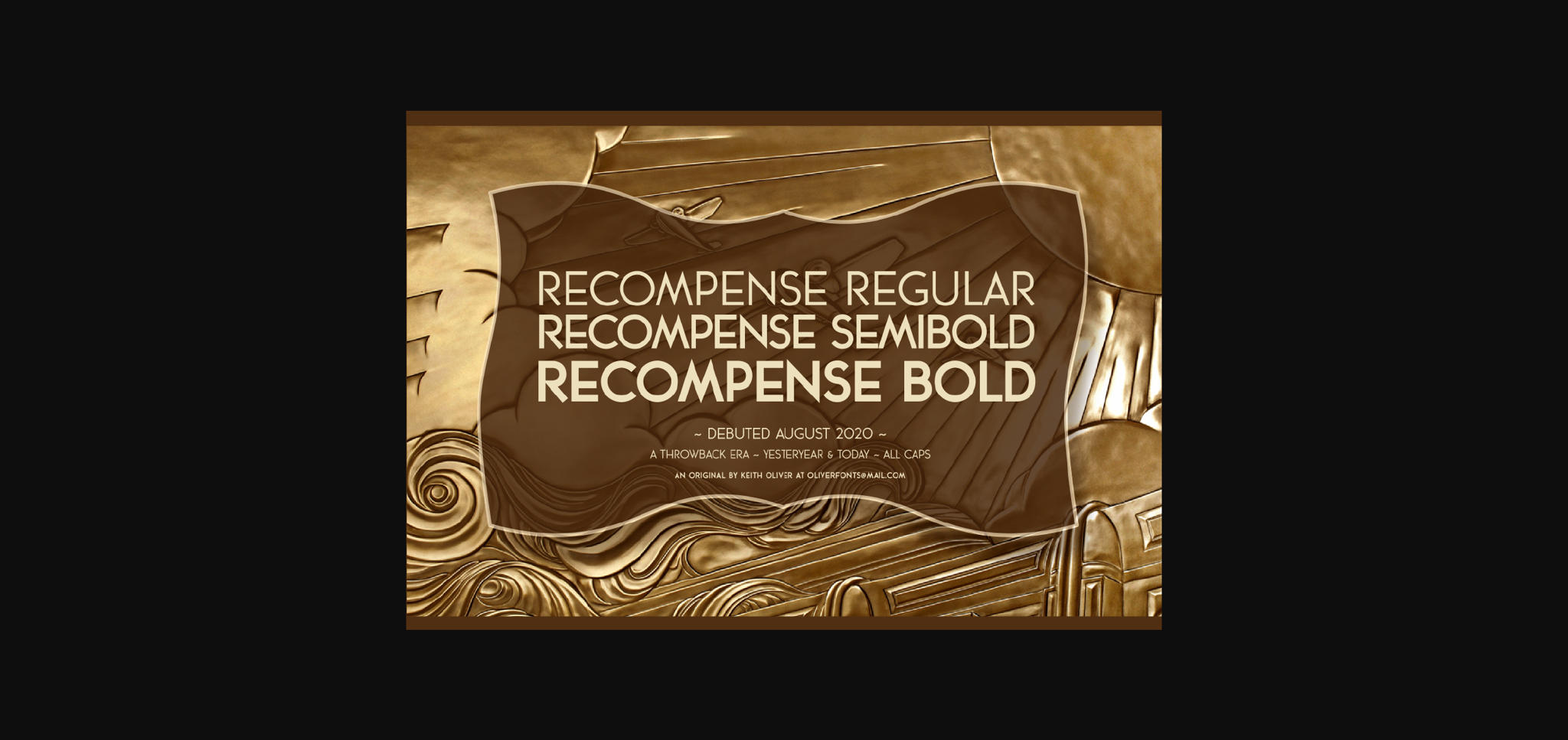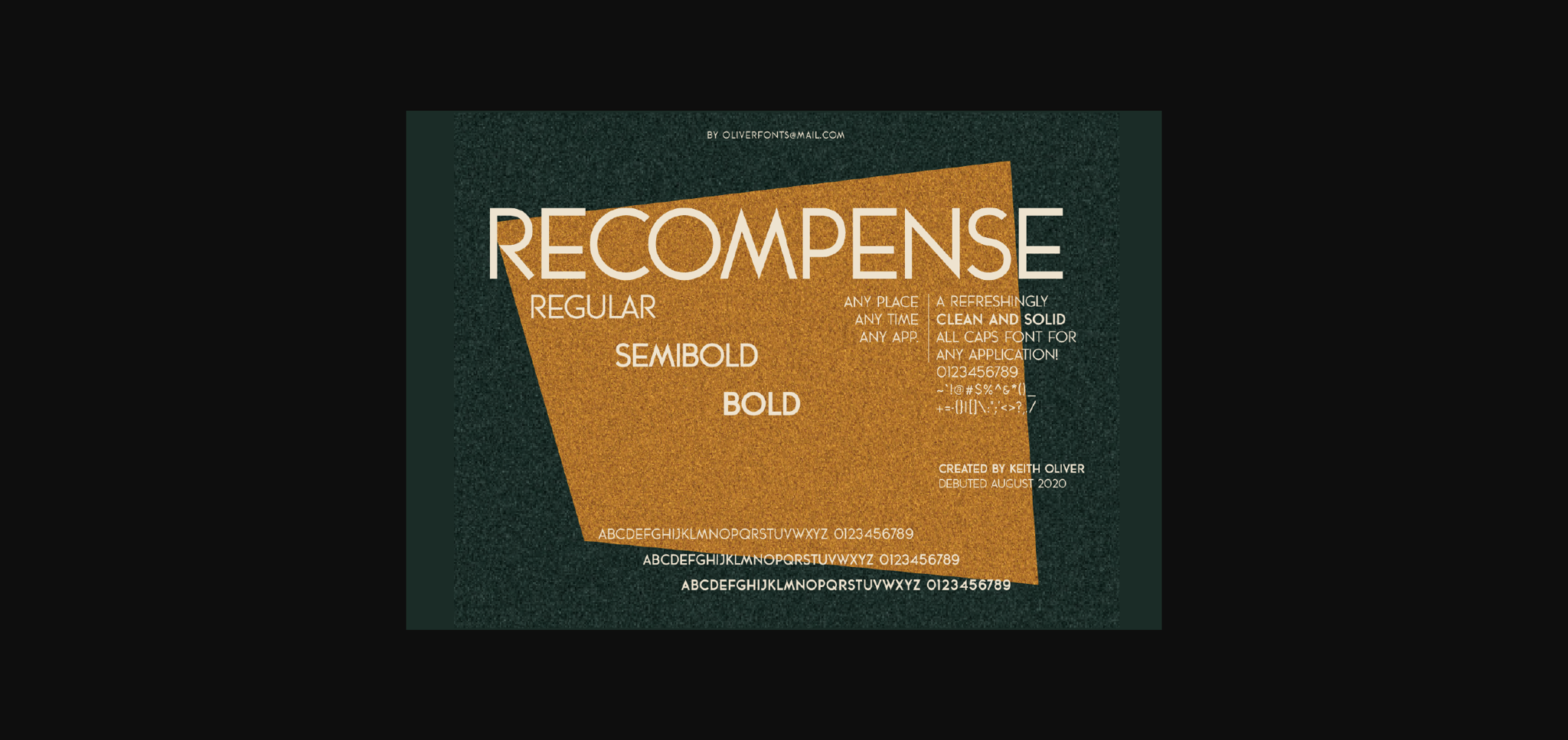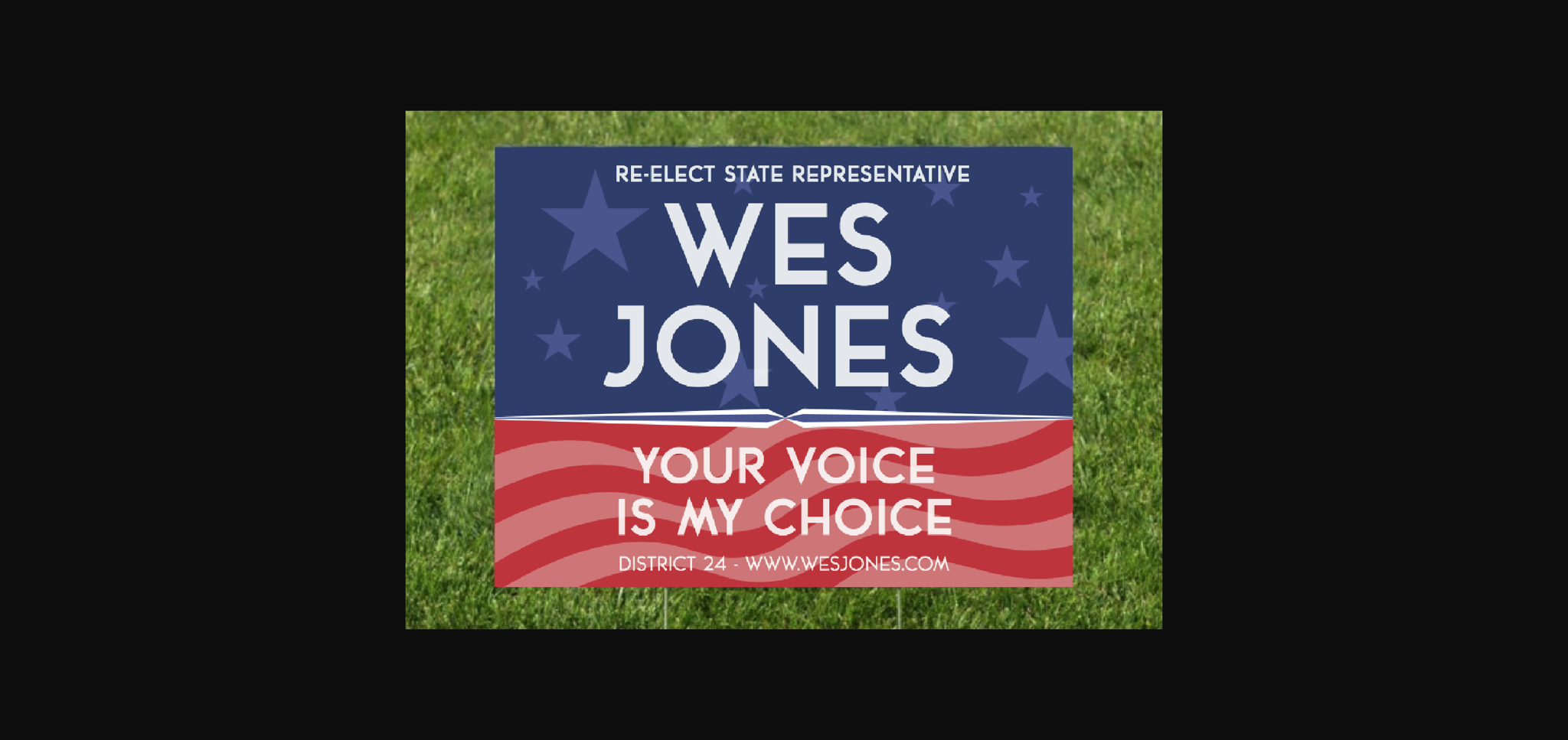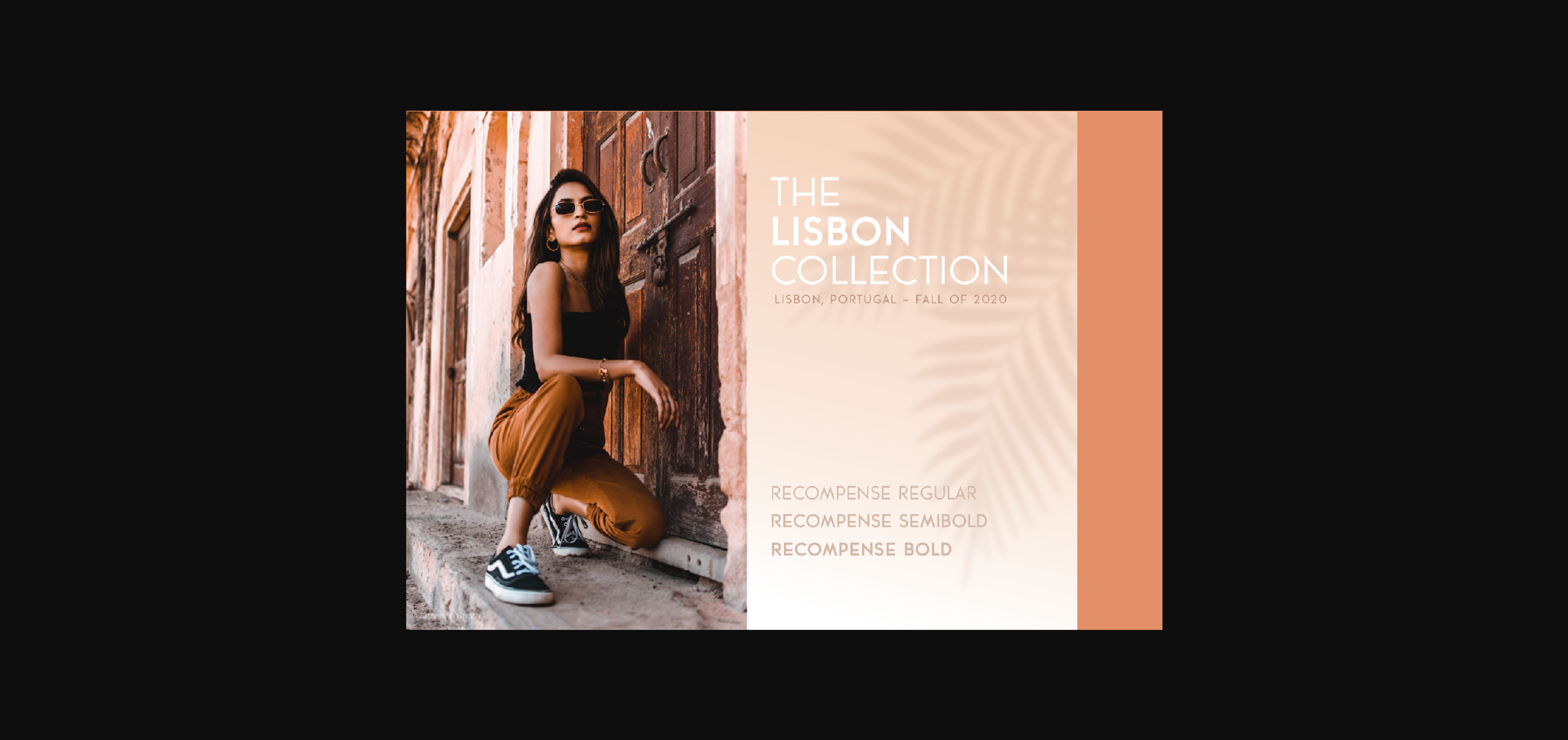
Recompense is a minimal and neat sans serif font. It can easily be matched to an incredibly large set of projects, so add it to your creative ideas and notice how it makes them stand out!